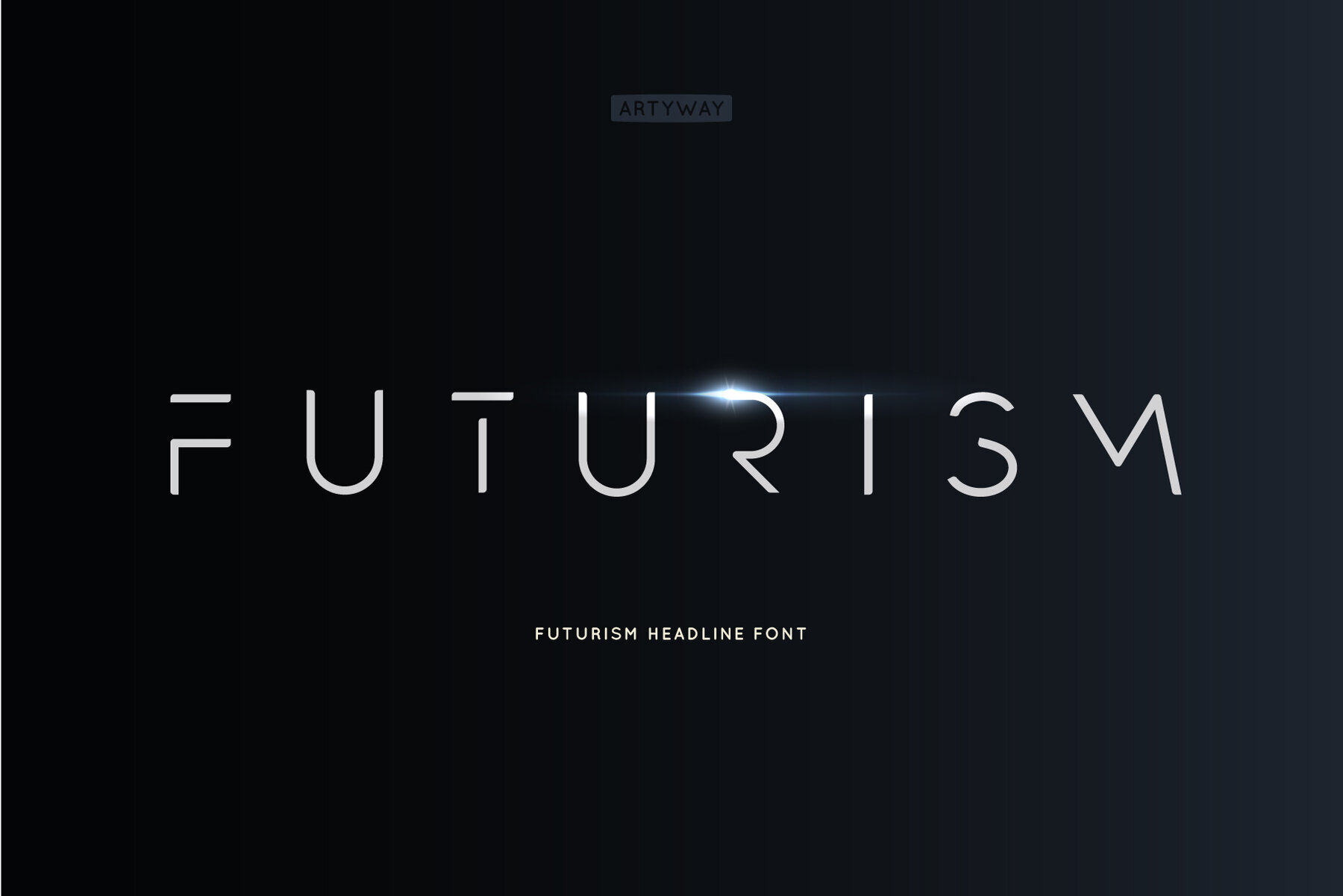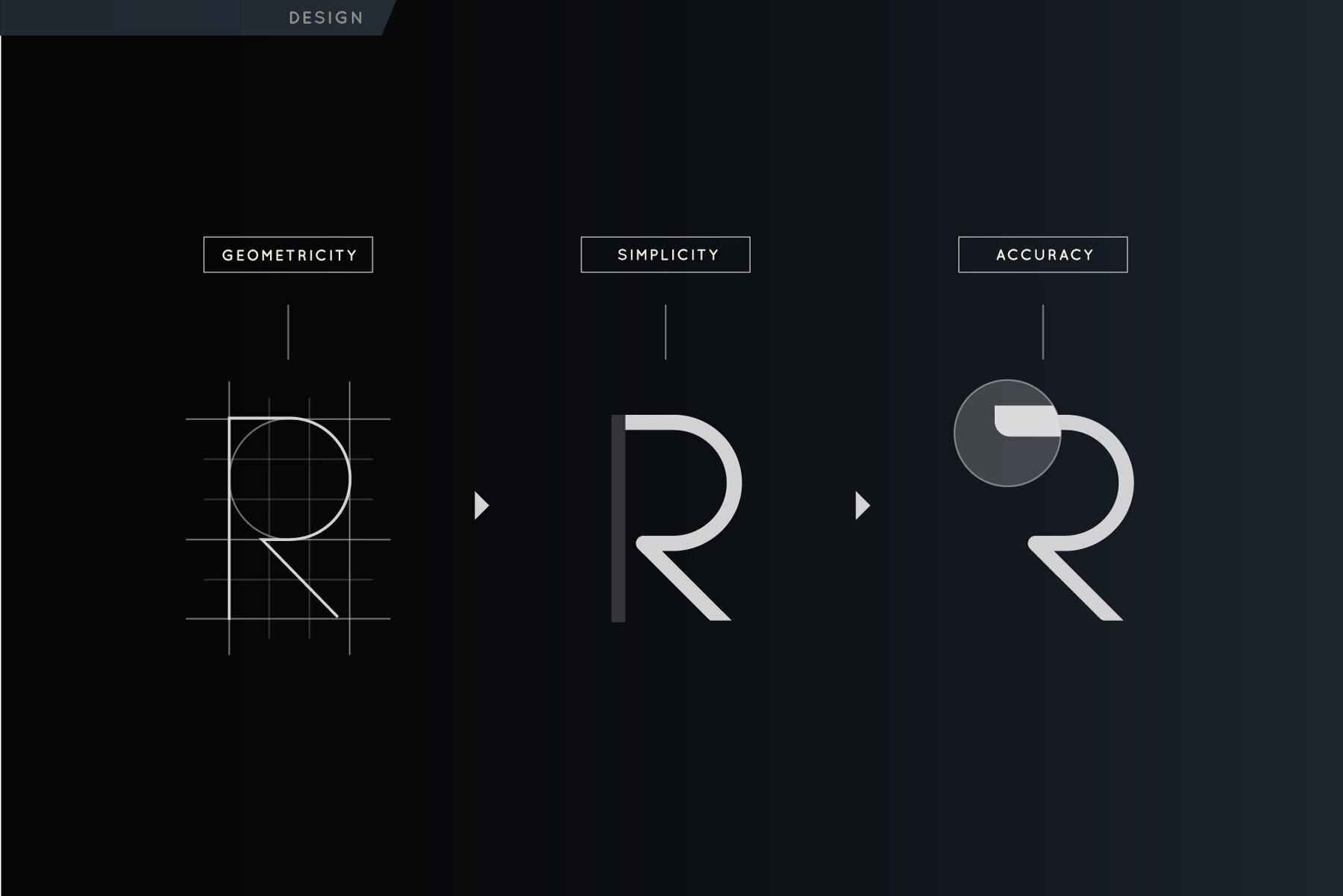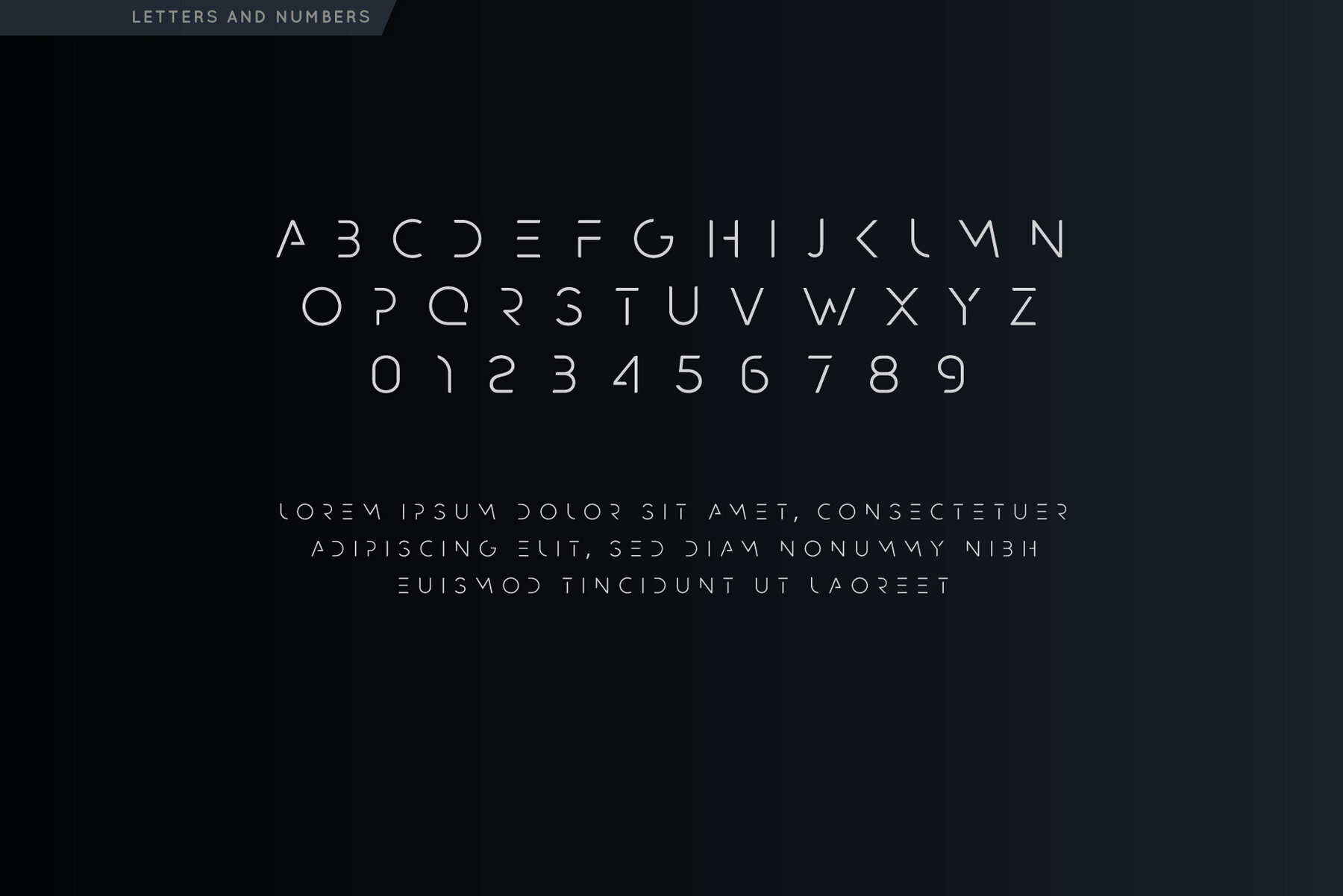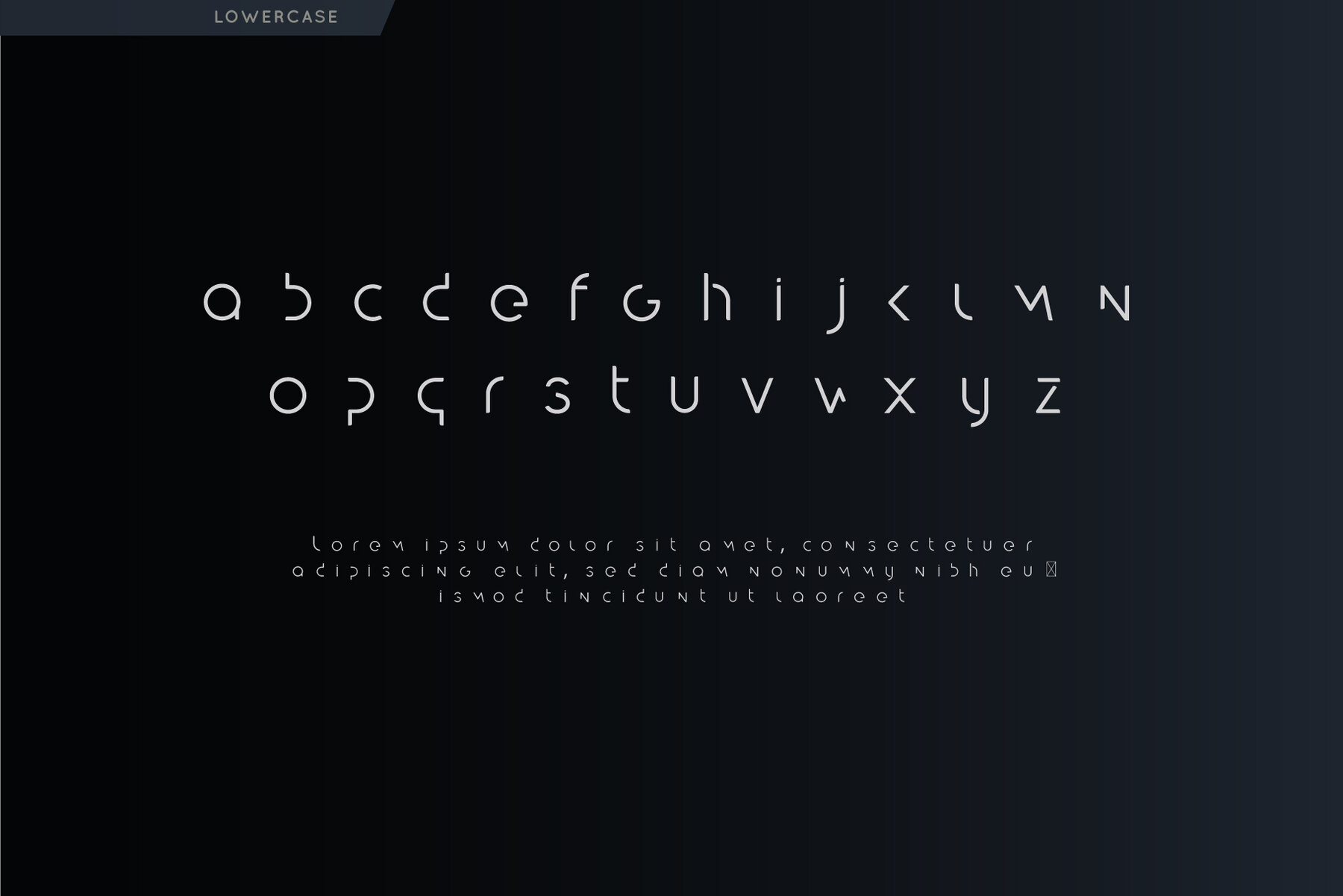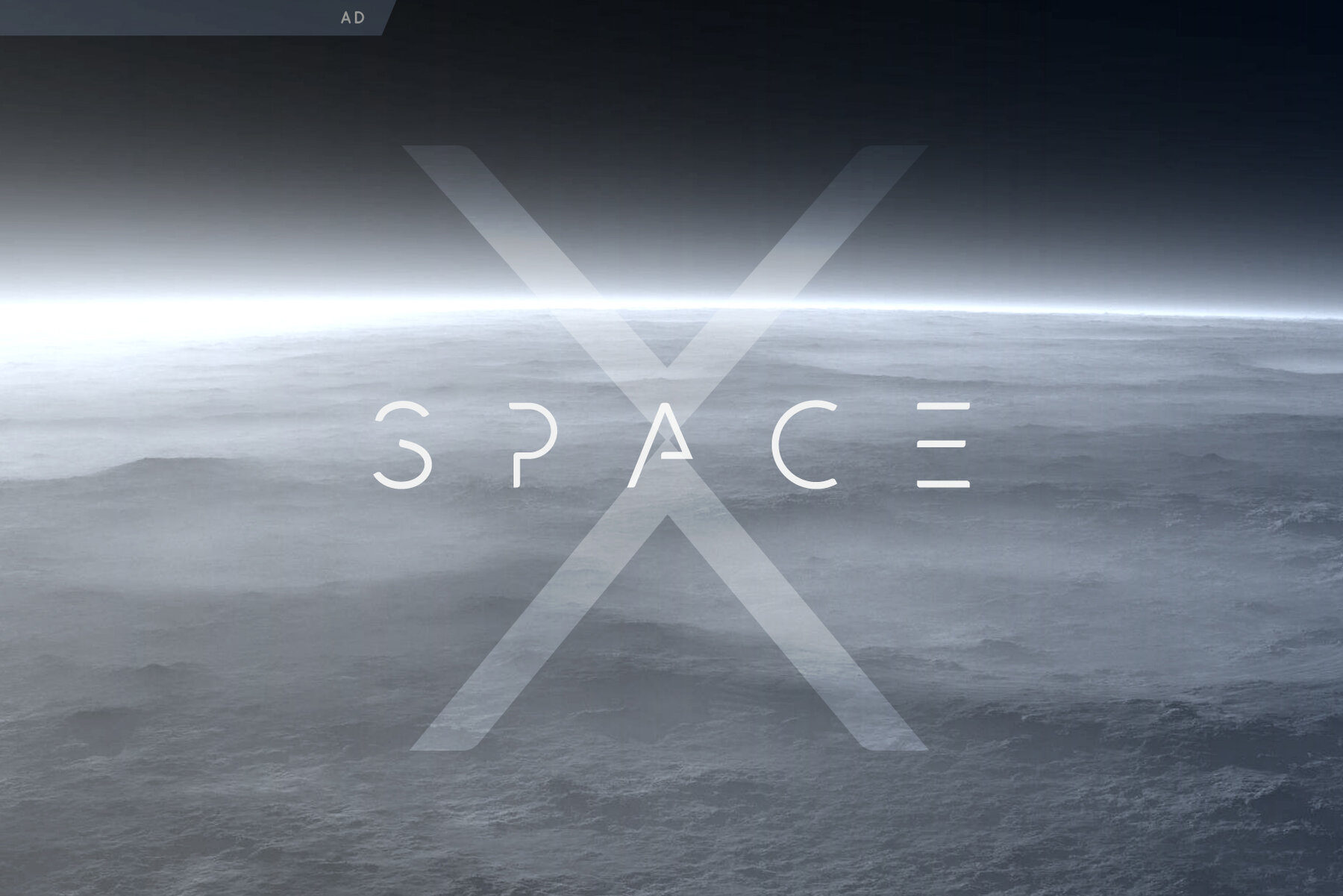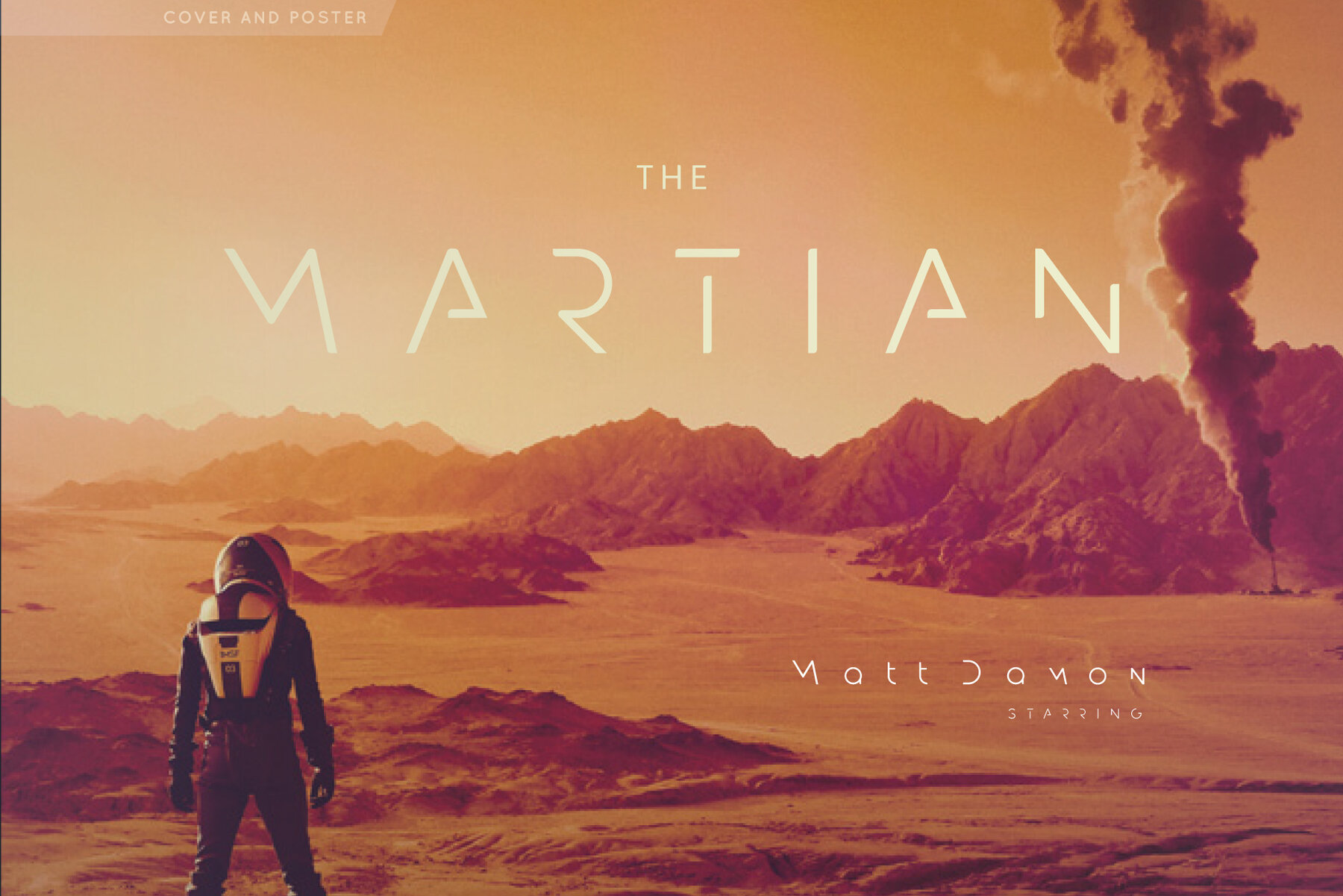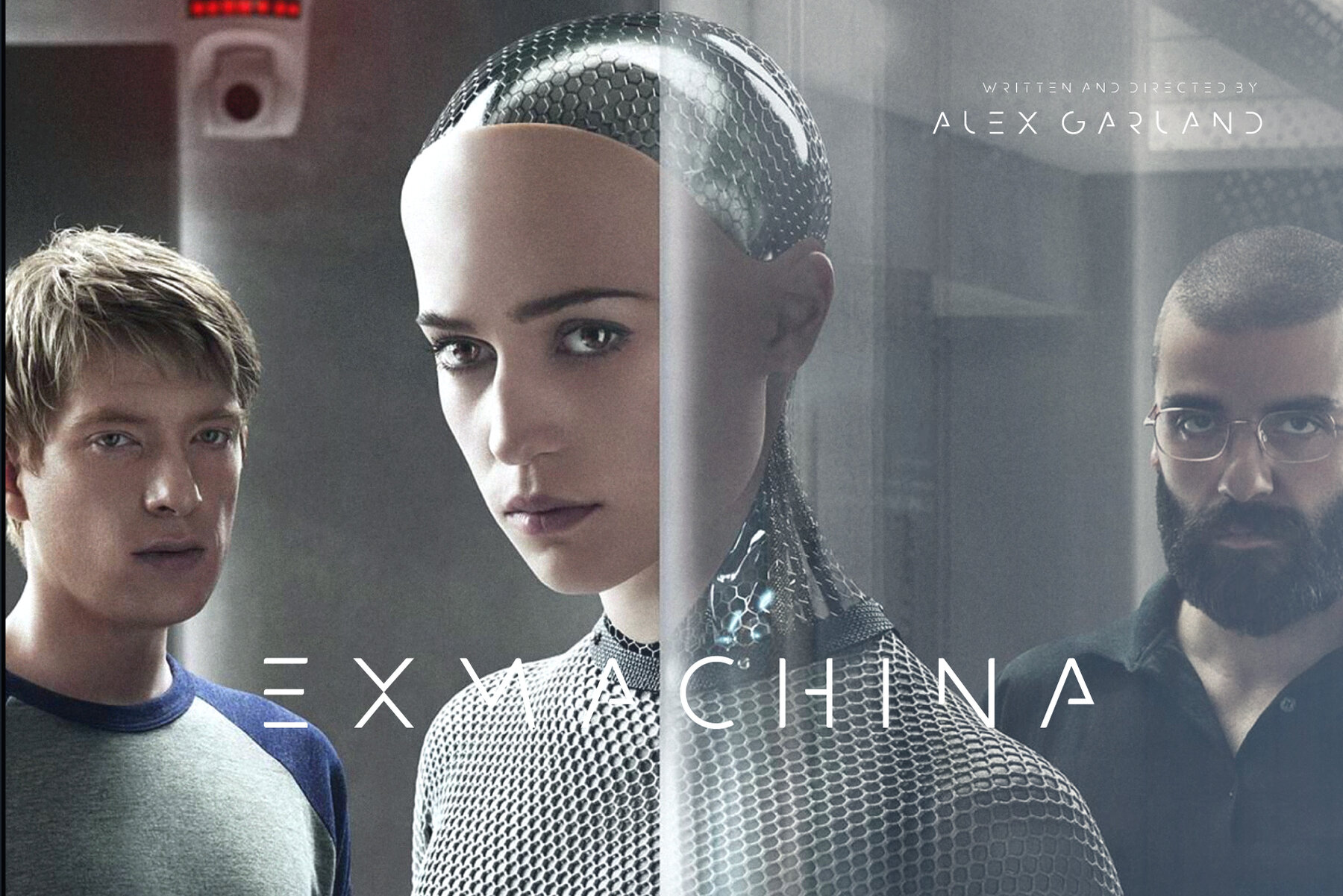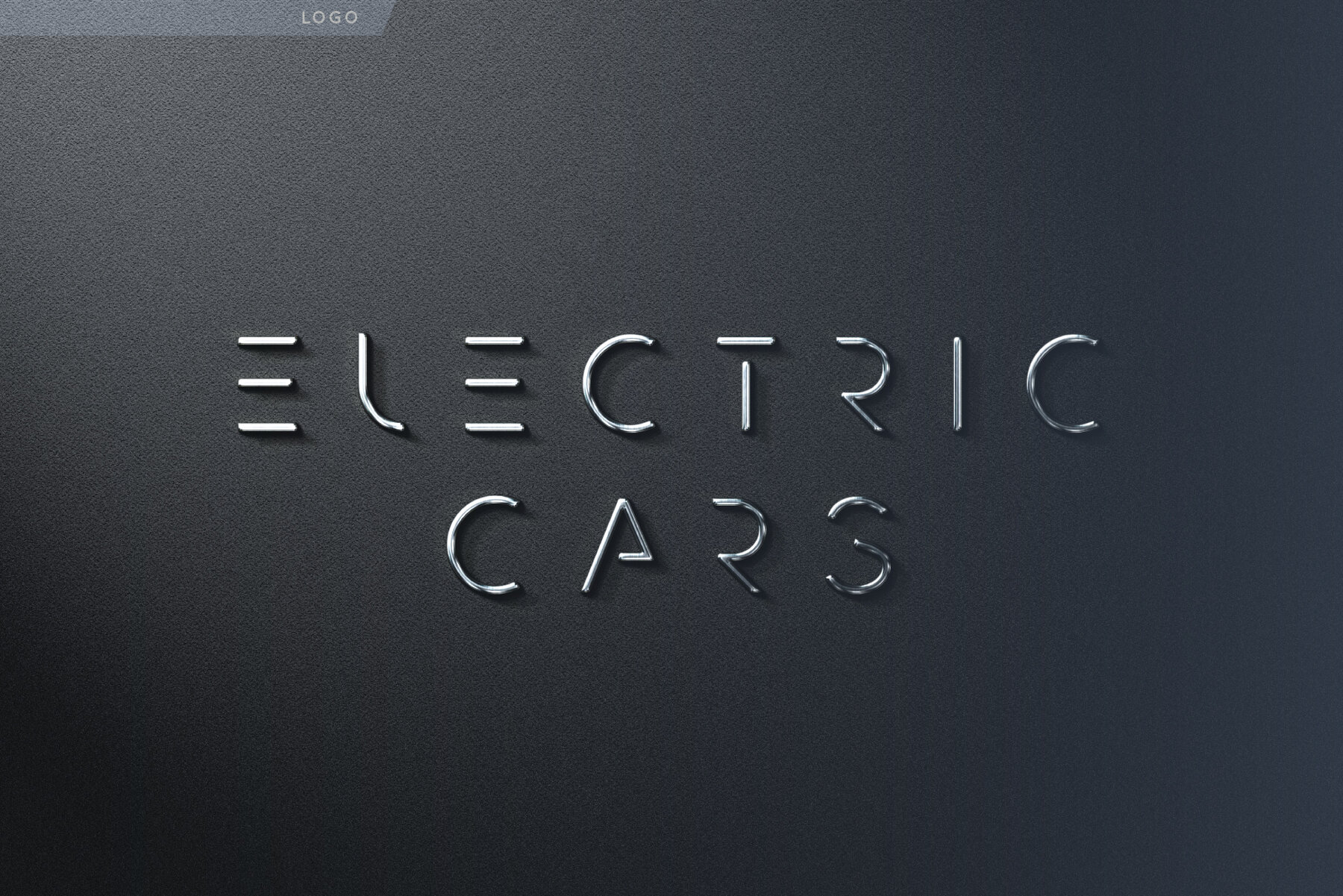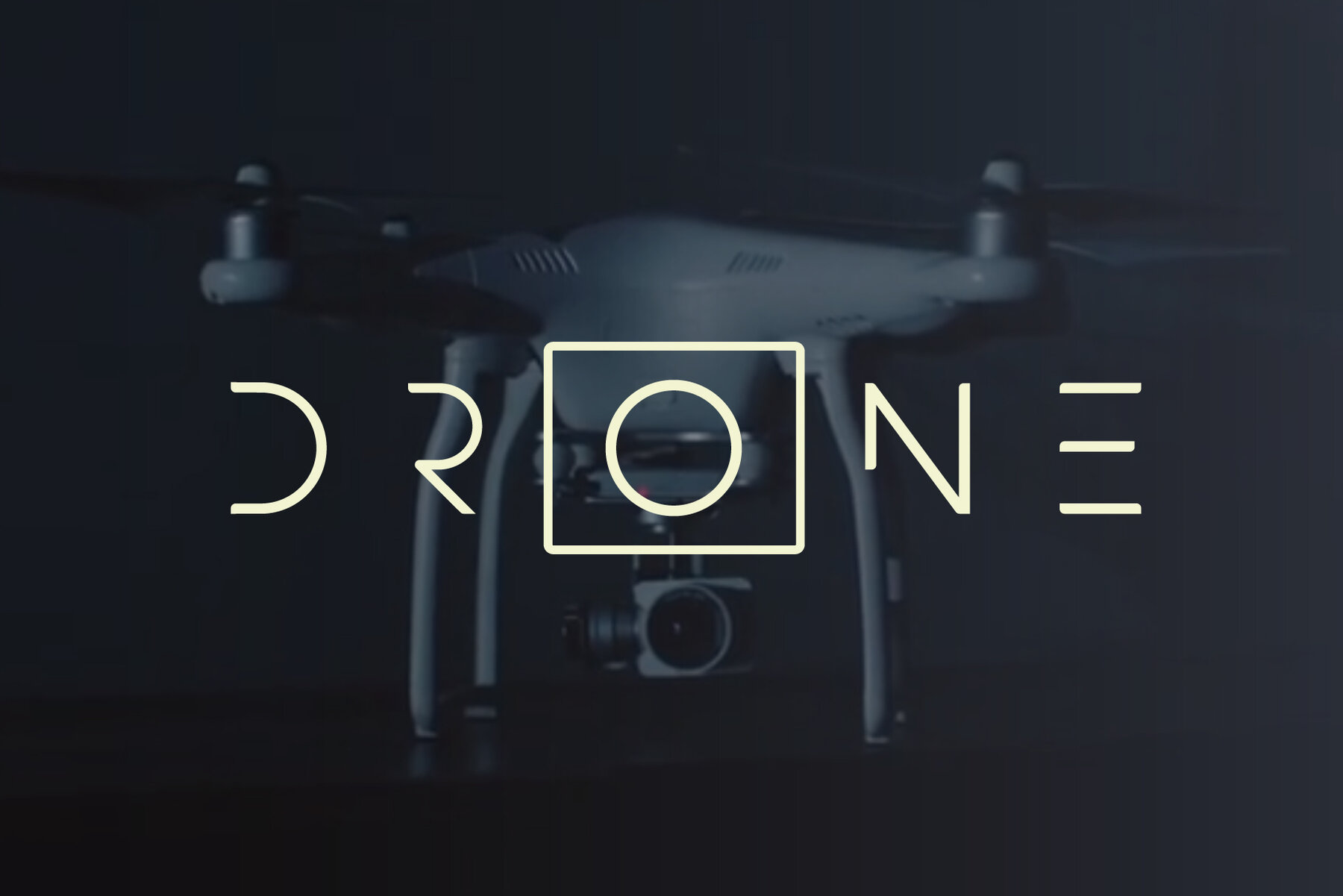
Futurism Font
Futurism Regular
Welcome to the world of modern graphic design with our latest creation "Futurism" font! This font is currently one of the most popular fonts worldwide and will surely make you happy too! Versatile and perfect for creating logos, emblems, and posters. Although using it with longer intervals between letters is recommended, you can easily customize it to suit your design style. Futurism is a stylish and sleek font that exudes a futuristic vibe, making it perfect for space-themed, high-tech, and innovative products. With your download, you'll receive one OTF file that includes uppercase and lowercase multilingual letters, numbers, and punctuation marks Don't wait any longer to elevate your designs with the Futurism font!